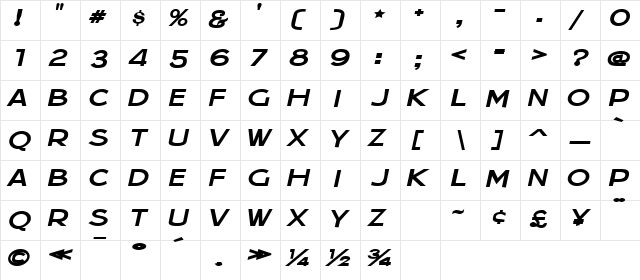
Jera Sans Italic JL Regular
Design Context for Jera Sans Italic JL Typeface
Jera Sans Italic JL is a composed and adaptable typeface that performs quietly and consistently across a wide range of design contexts. Its italic angle brings a sense of urgency and motion to the letterforms.
Pro Tip: Use Jera Sans Italic JL for emphasis, pull quotes, and subheadings where its slanted energy can add rhythm to the layout.